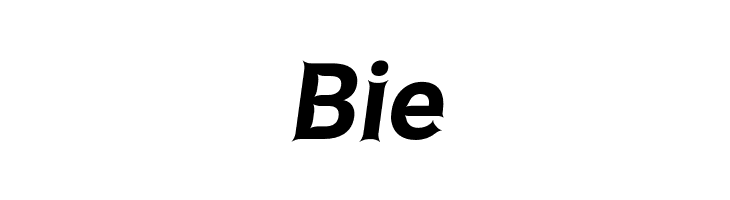
A bold, wide outline font with a modern and impactful style.
A modern, narrow font with bold, clean lines and excellent readability.
A modern, italic sans-serif font with a sleek and dynamic style.
A bold, extra-wide outline font with a modern and geometric style.
A bold, wide, and italic font with a modern and dynamic style.
A bold, wide typeface with a modern and assertive style.
A modern sans-serif font with a clean, geometric design and uniform stroke widths.
A bold, extra-wide outline font with an italic slant and geometric design.
A bold, modern sans-serif font with clean lines and geometric structure.
A modern, italicized outline font with a sleek and dynamic style.
A modern, wide, and italicized font with bold characters and a sleek design.
A modern, narrow outline font with a sleek and futuristic design.
A modern italic font with clean lines and dynamic slant.
A sleek, narrow, and italicized modern font with a dynamic feel.
A bold, wide outline italic font with a modern and dynamic style.
A modern, narrow, italic outline font with a sleek and futuristic design.
A geometric, angular font with a futuristic, digital appearance.
A bold, geometric font with sharp angles and a faceted design.
A bold, geometric display font with angular shapes and high contrast.
A bold, geometric font with sharp angles and a blocky appearance.
A bold, geometric font with a 3D effect and modern, decorative style.
A bold, geometric font with a futuristic and industrial aesthetic.
A geometric, three-dimensional font with a block-like, architectural design.
A bold, modern sans-serif font with geometric precision and strong legibility.
A geometric, thin-lined font with a modern and minimalistic style.
A bold, geometric font with rounded edges and a modern style.
A modern, geometric sans-serif font with clean lines and minimalist design.
A modern, geometric sans-serif font with consistent stroke widths.
A bold, geometric font with rounded edges and a modern style.